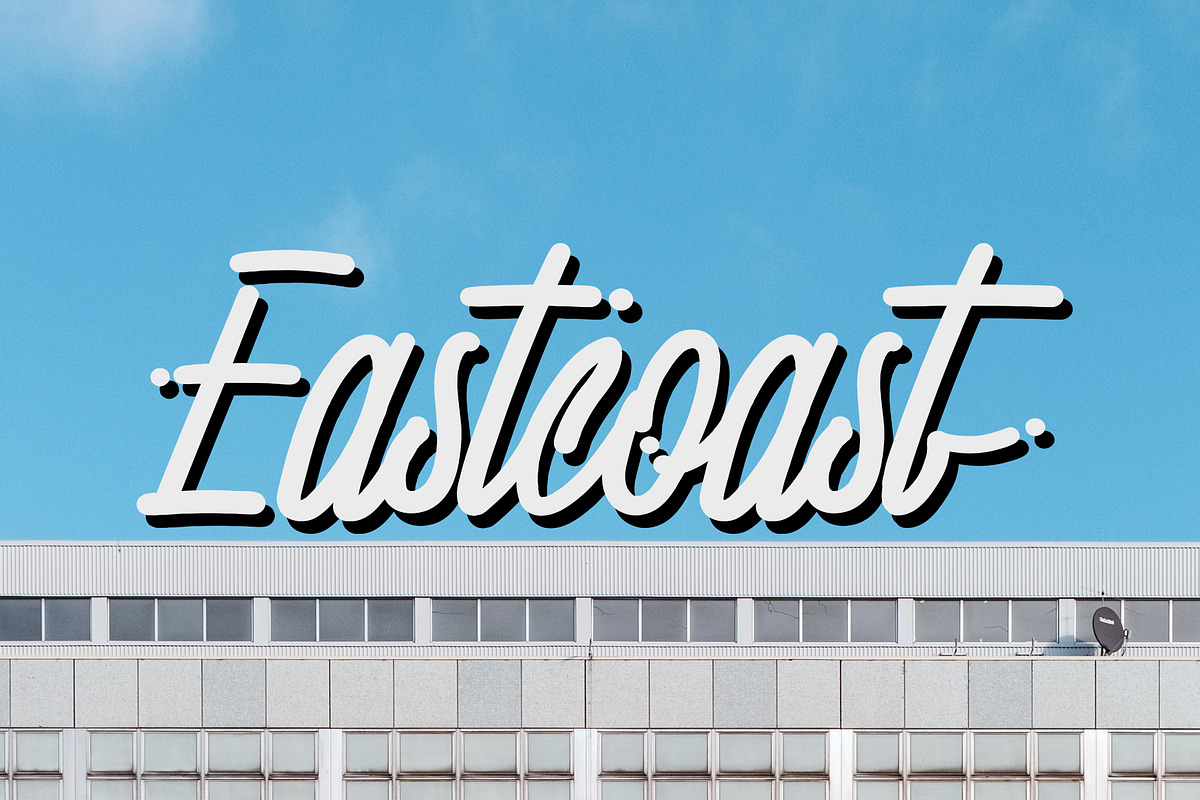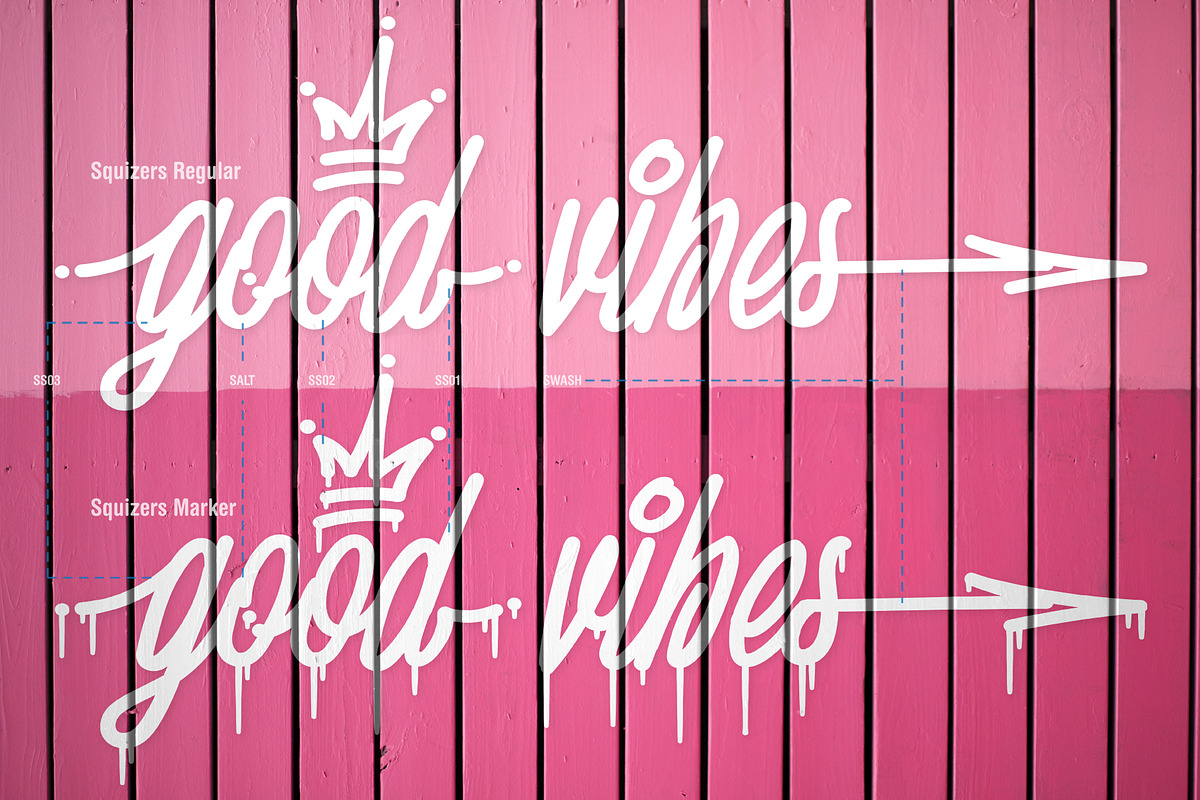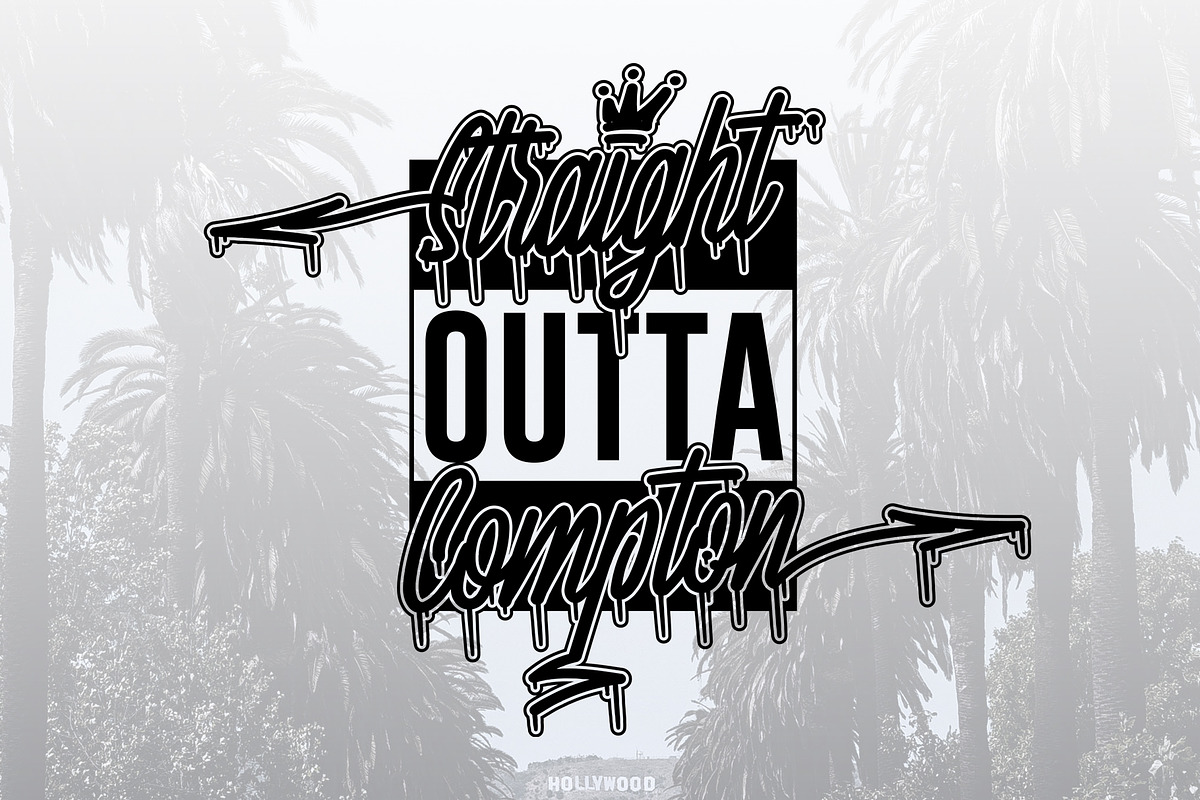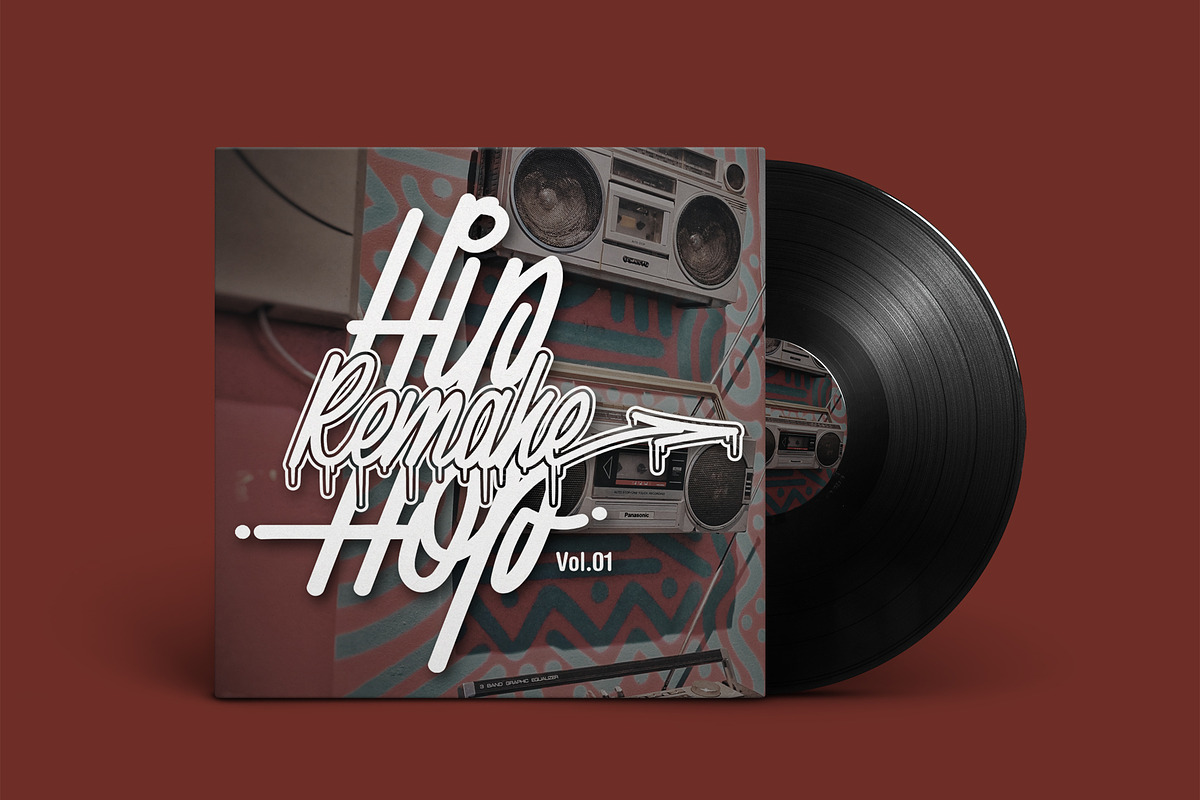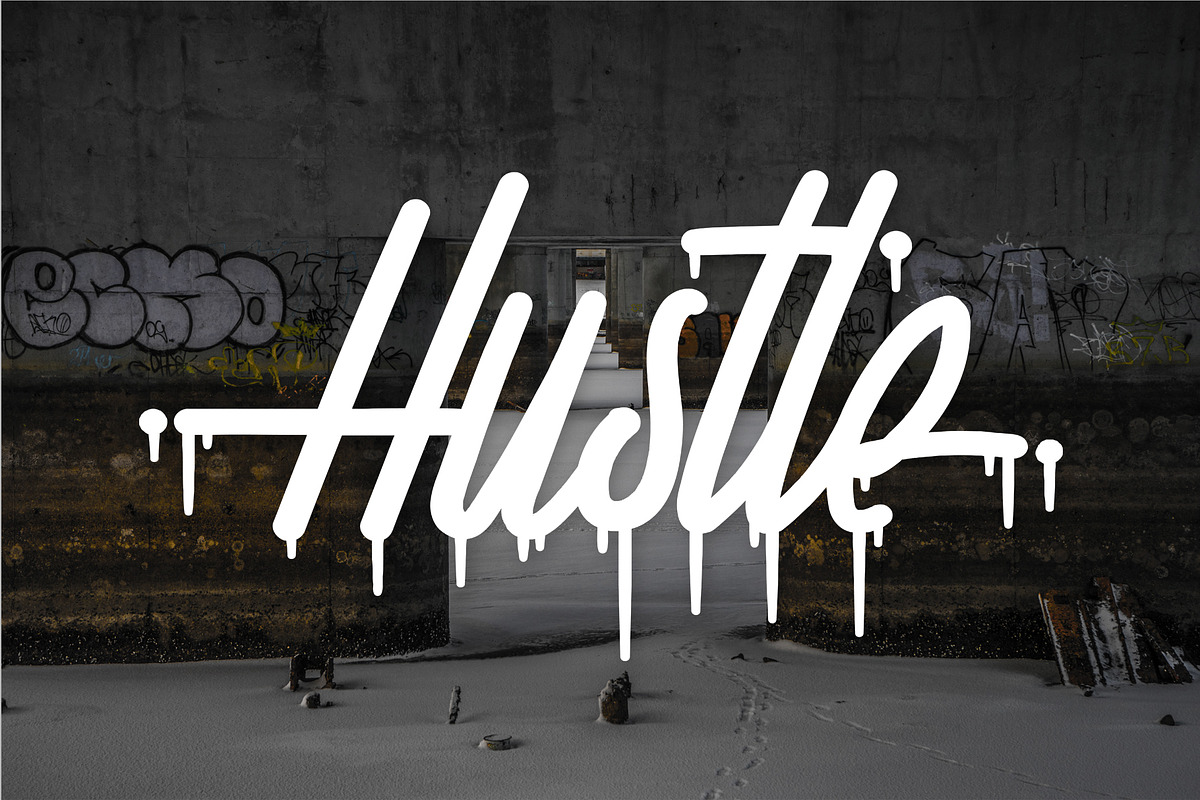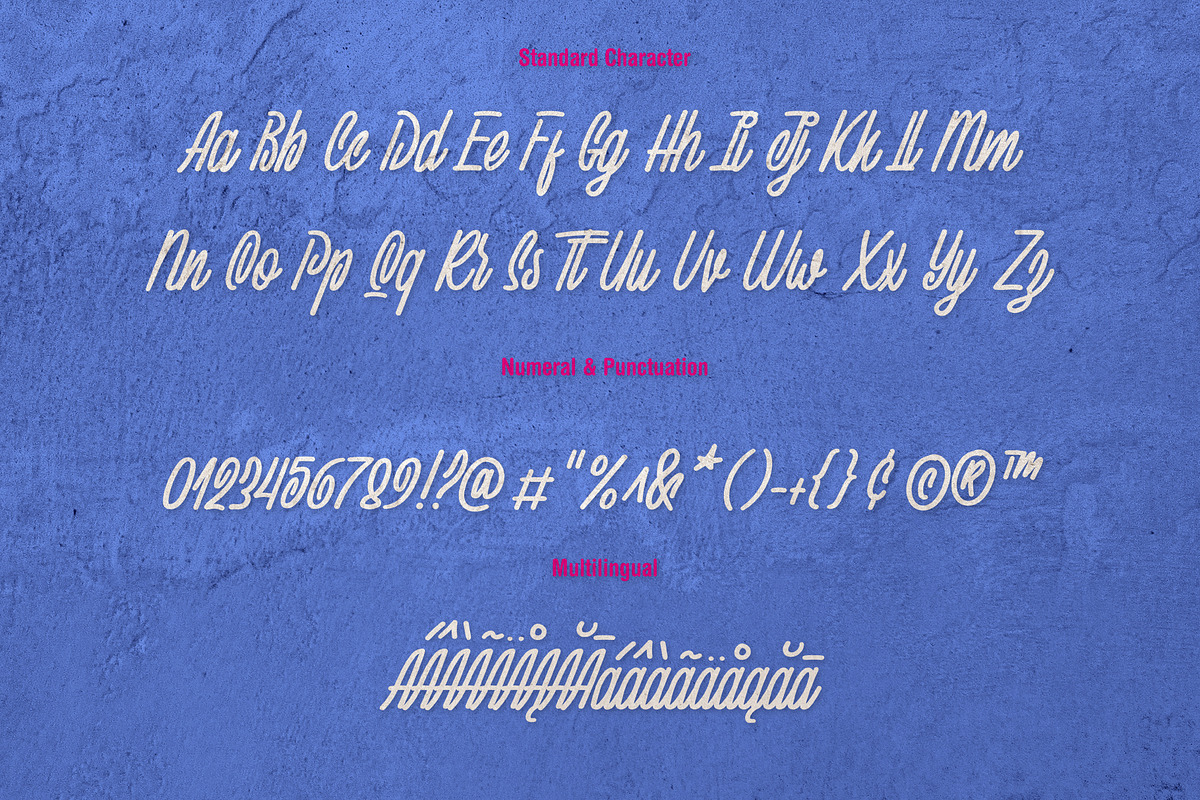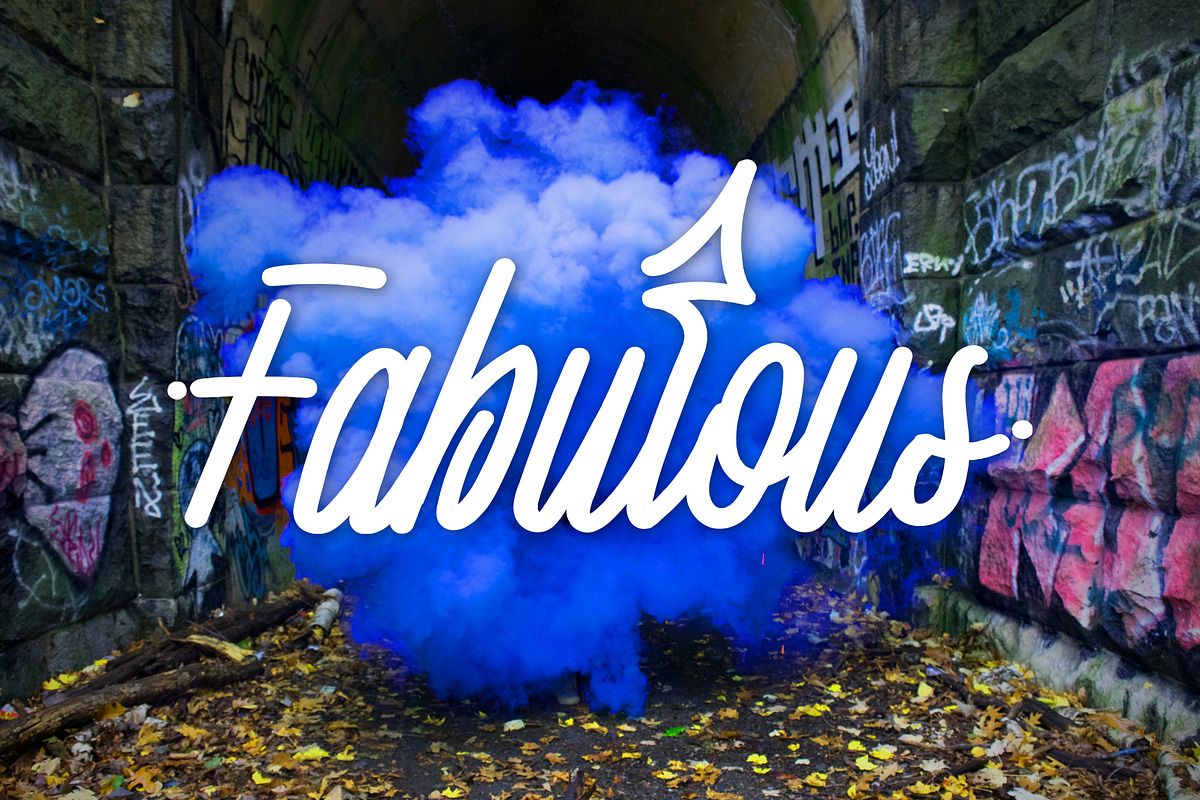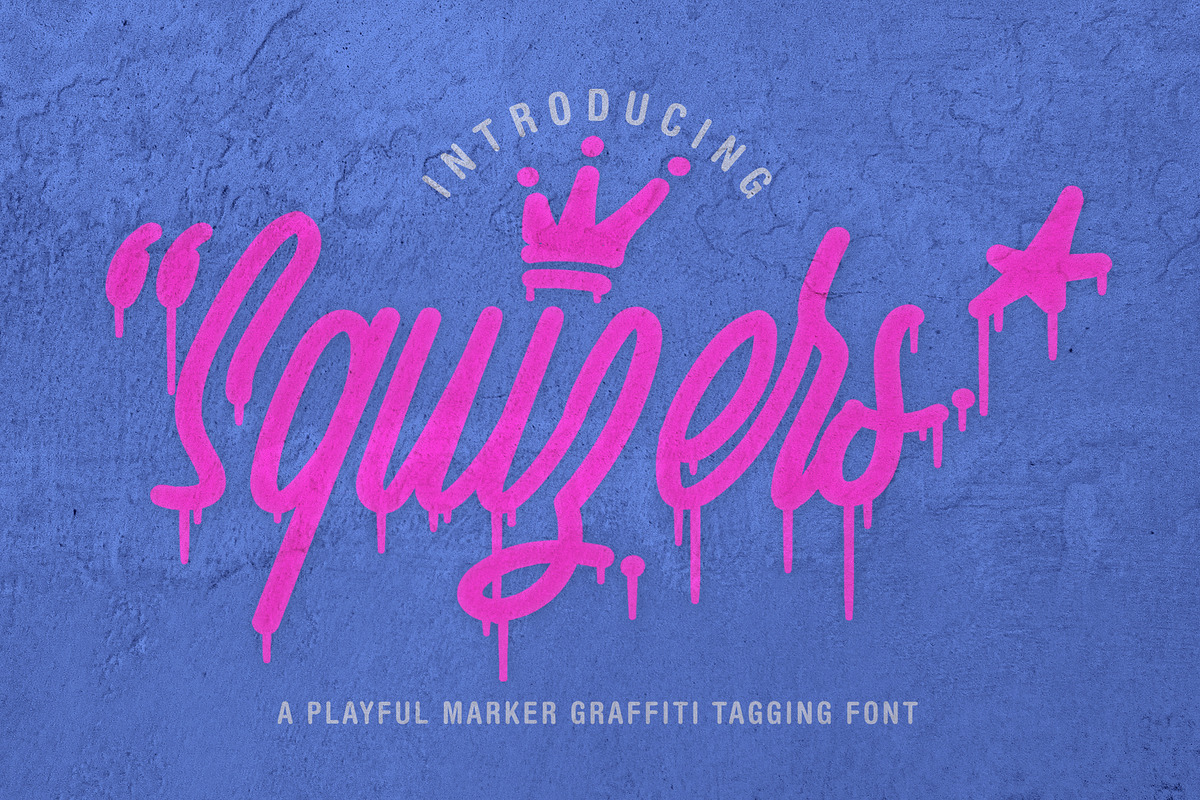
Squizers - Graffiti Fonts
Introducing Squizers Graffiti Tagging Font.
Squizers is modern and elegant font display. Comes with 2 styles font: regular and marker type with many opentype feature, upper and lower case standard character, punctuation and numerals, multilingual characters, ligatures, stylistic alternates, beginning and ending, and many more glyph to make your design look real graffiti tagging.